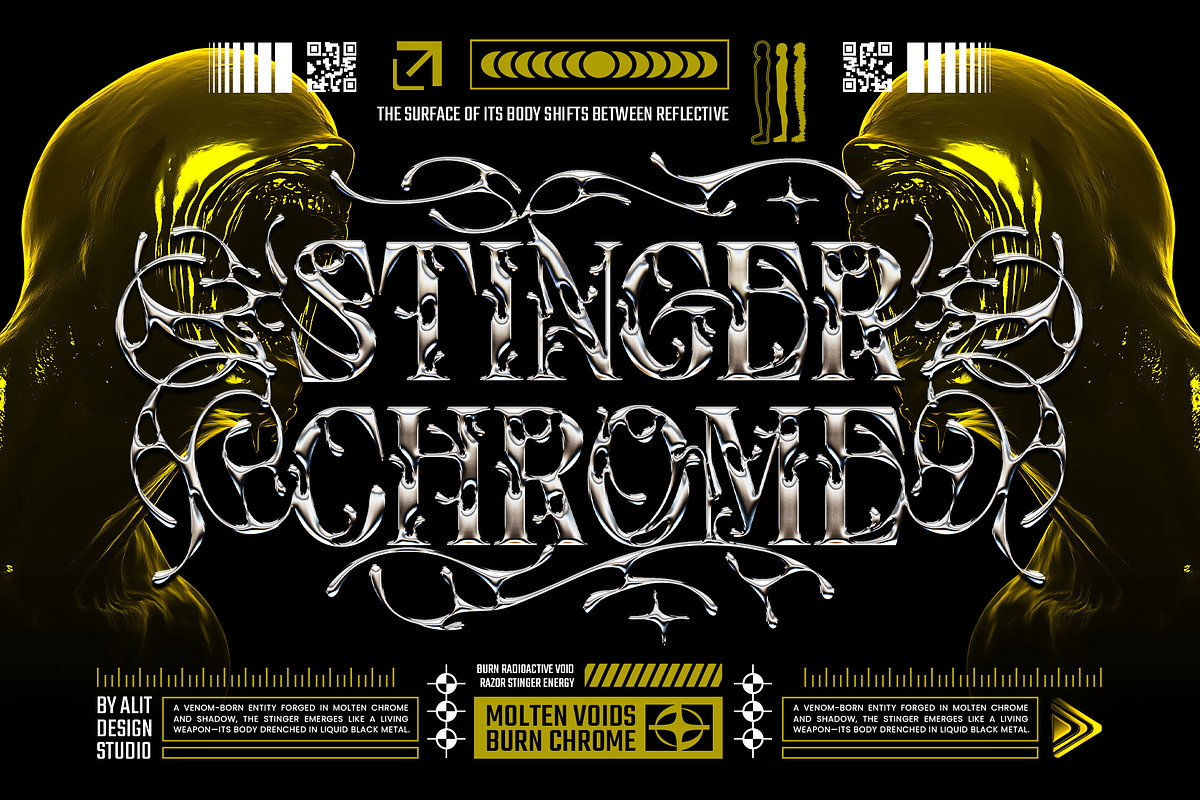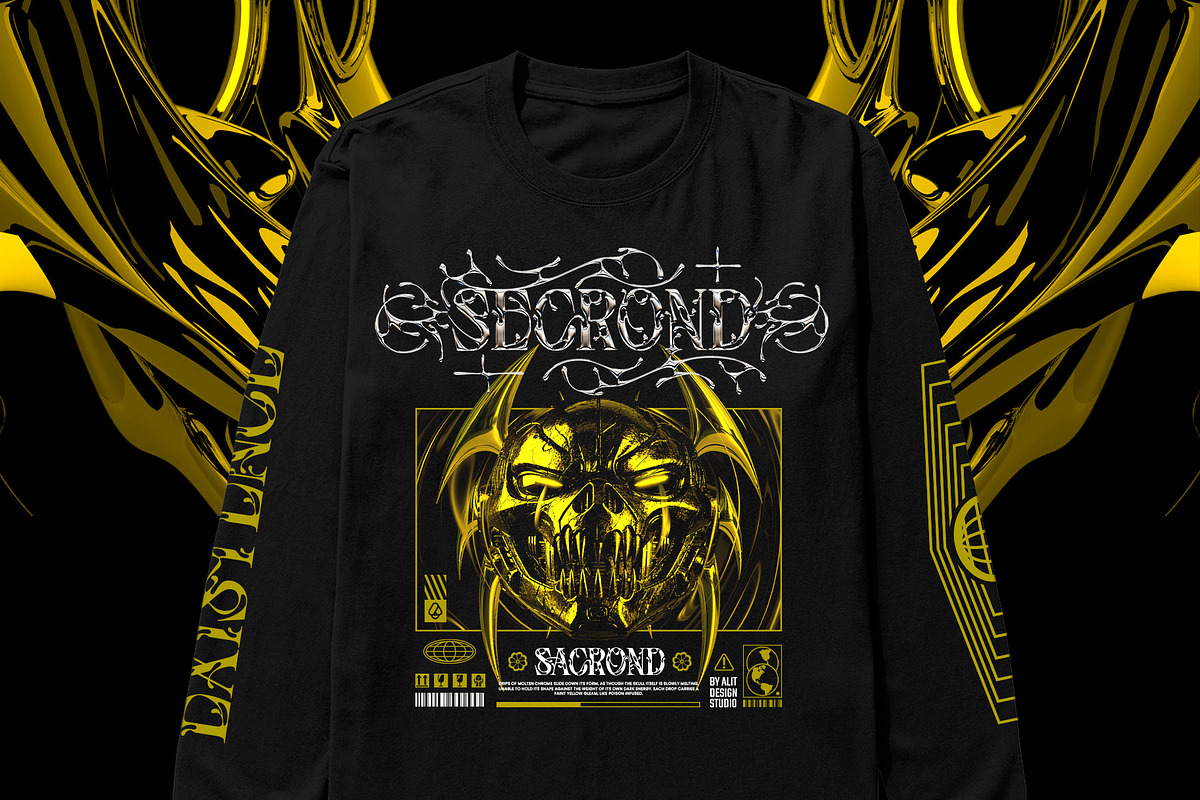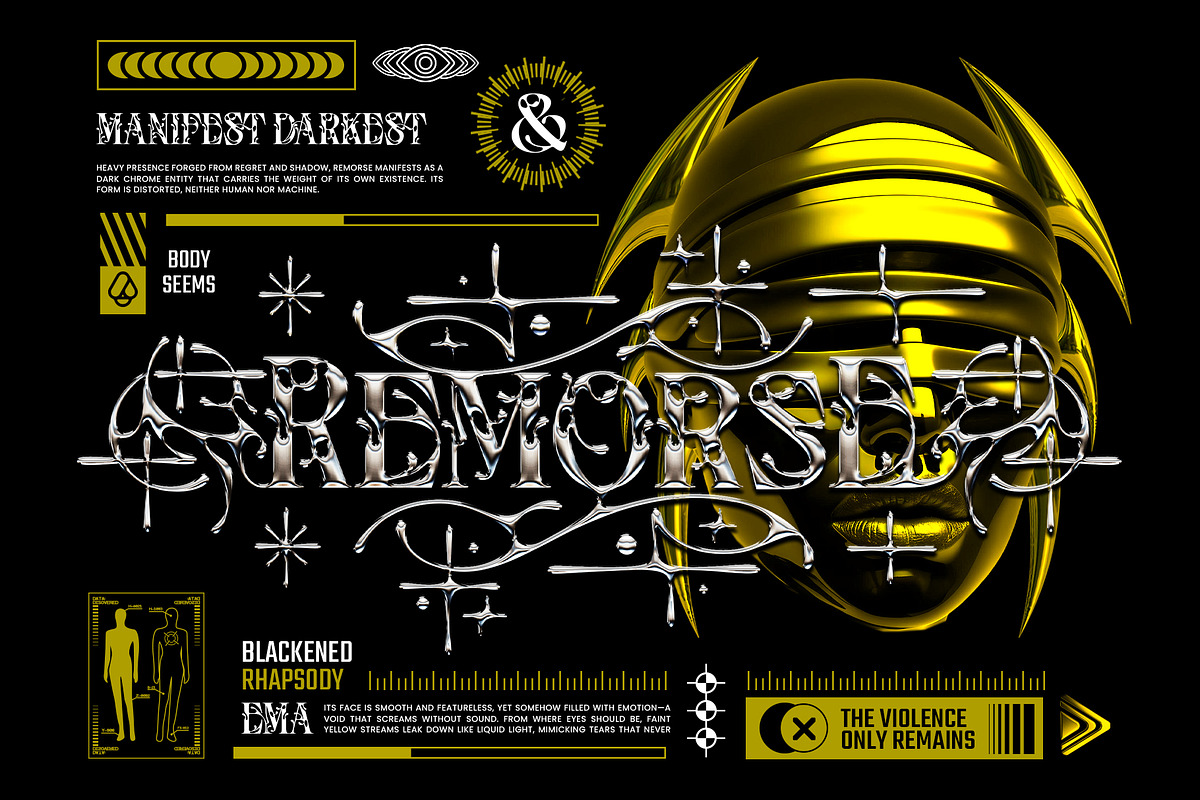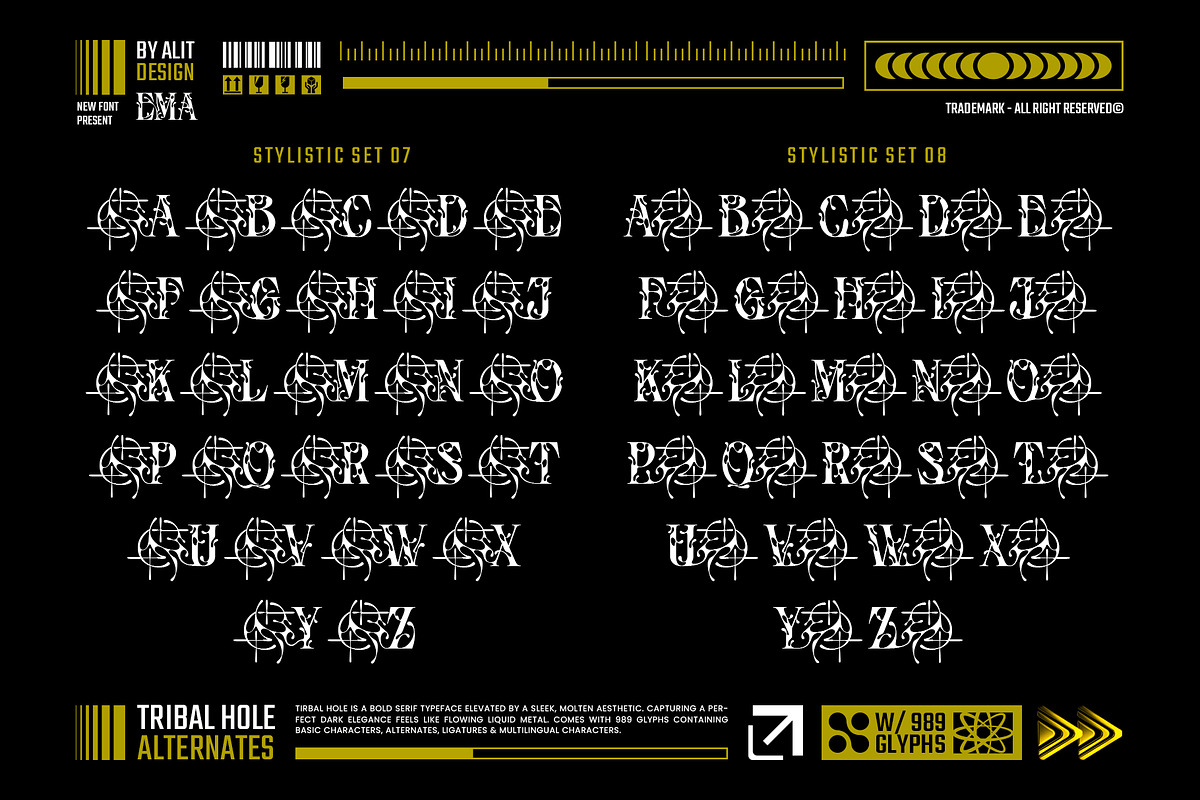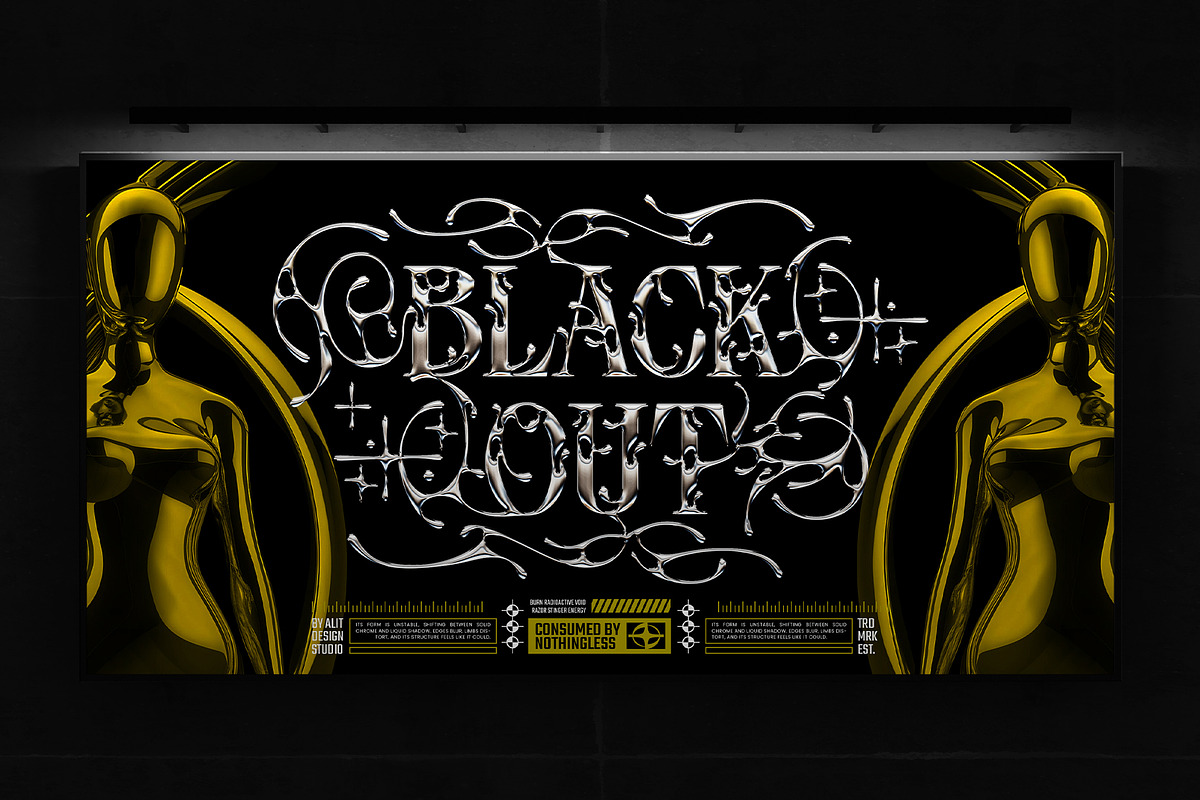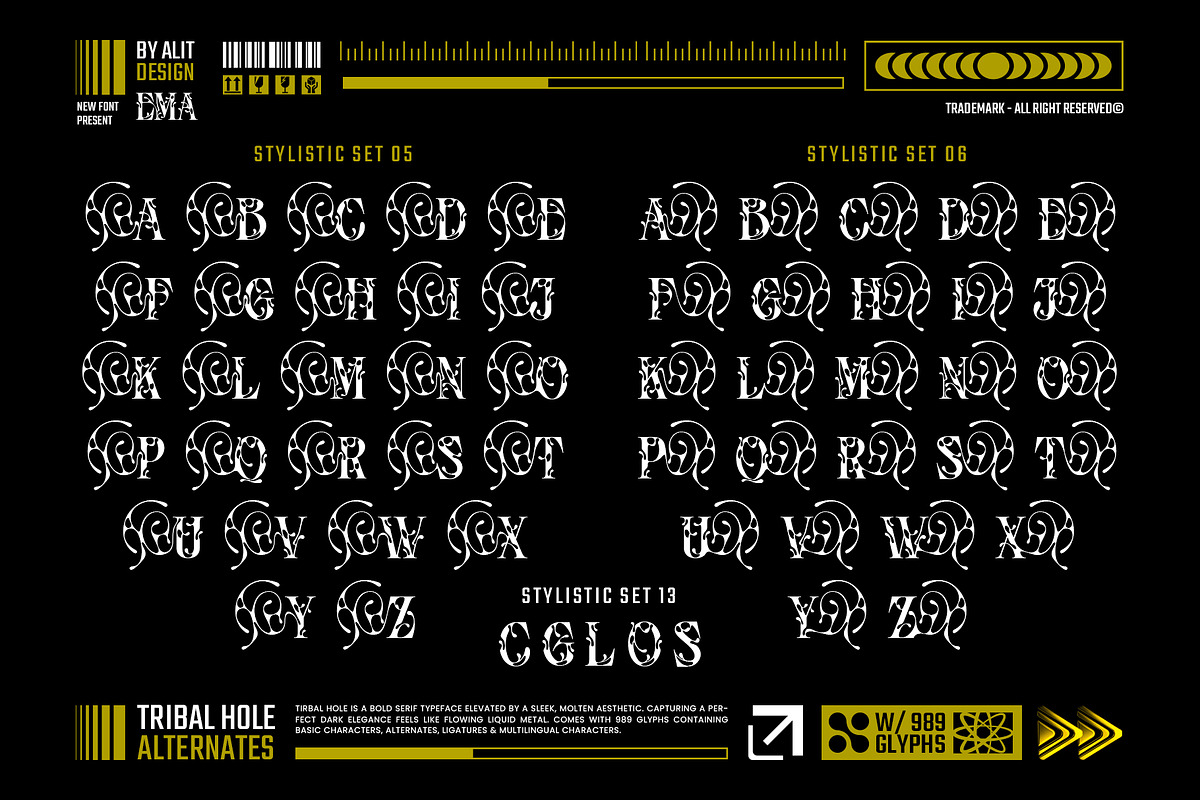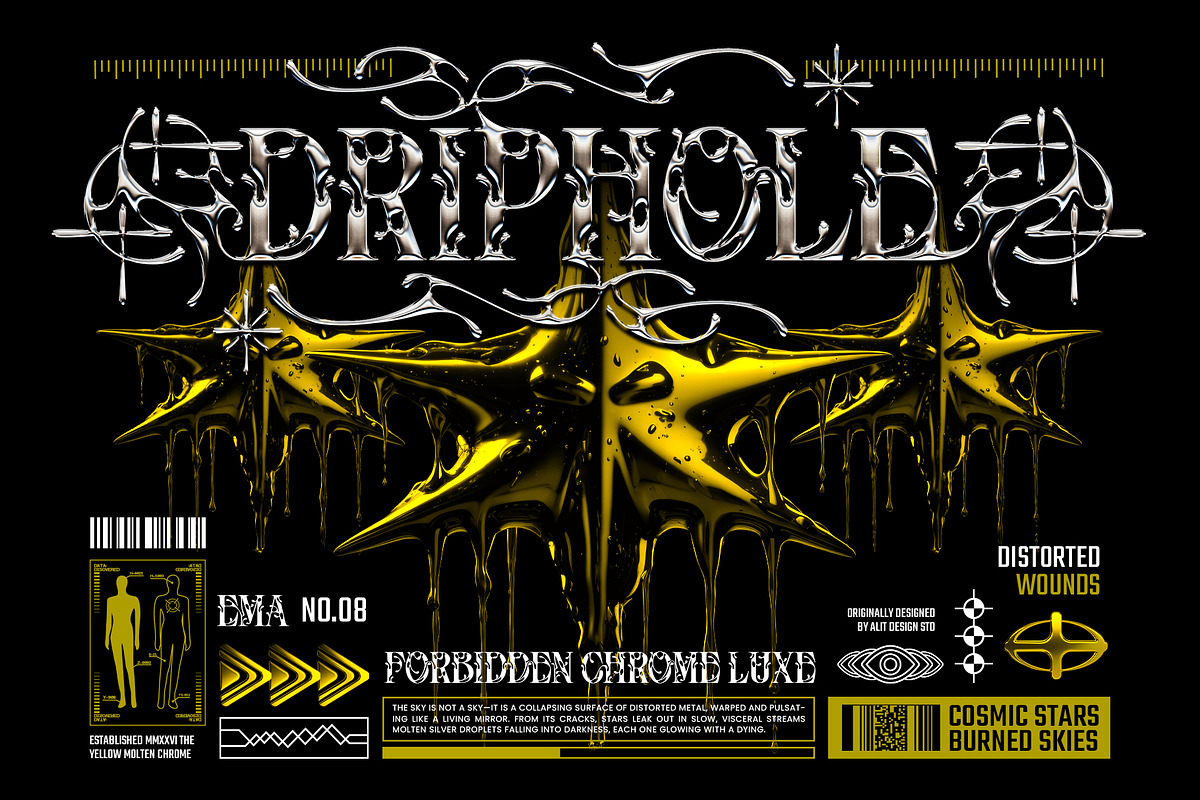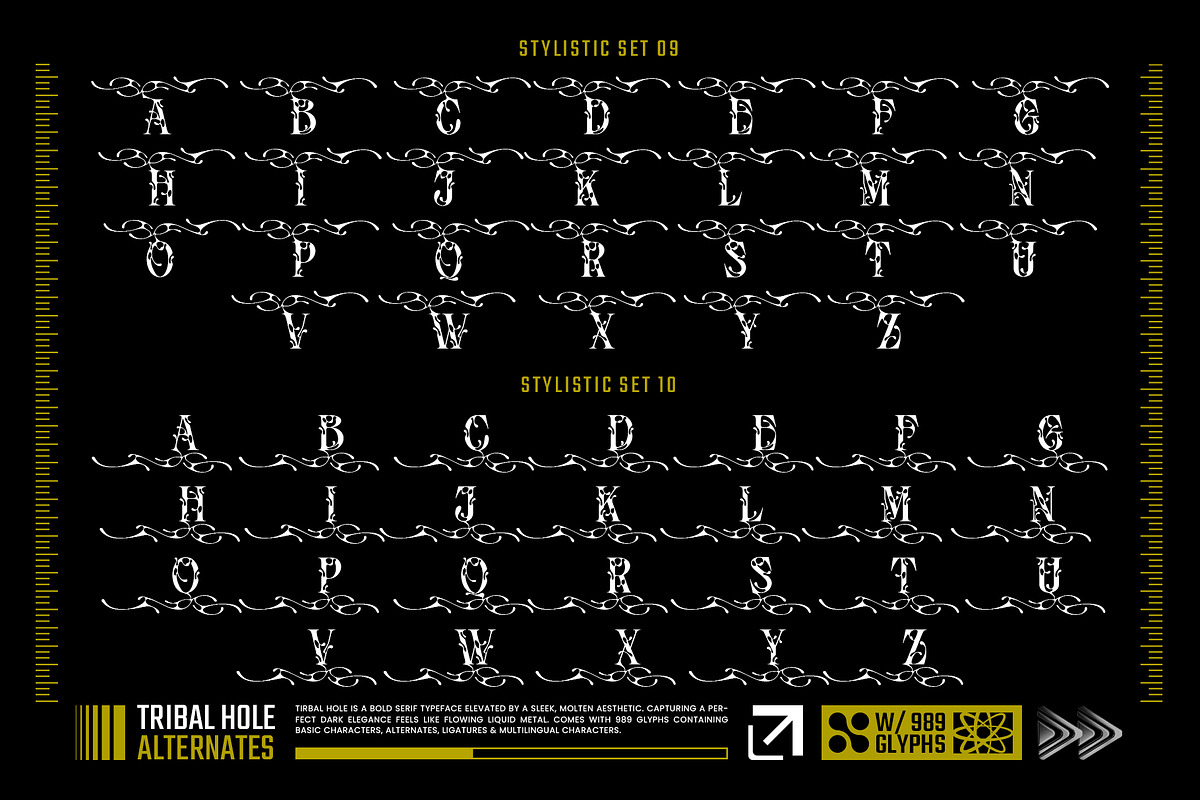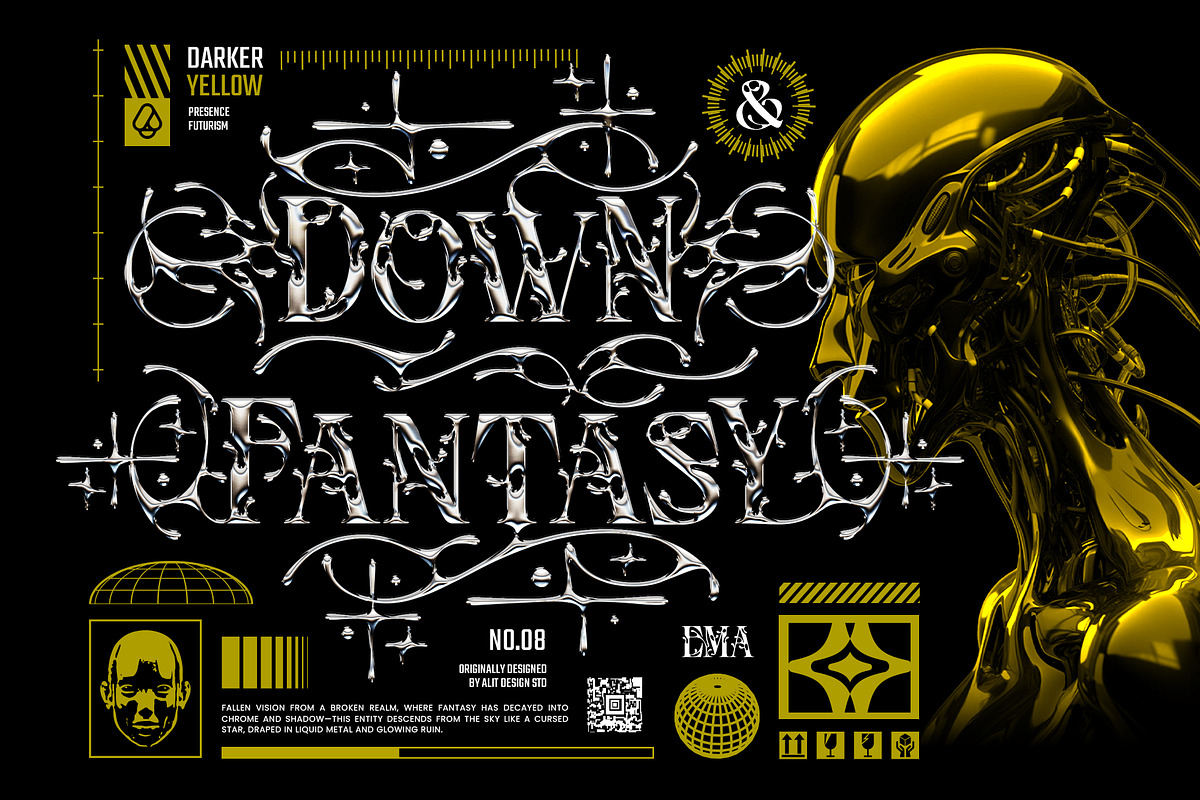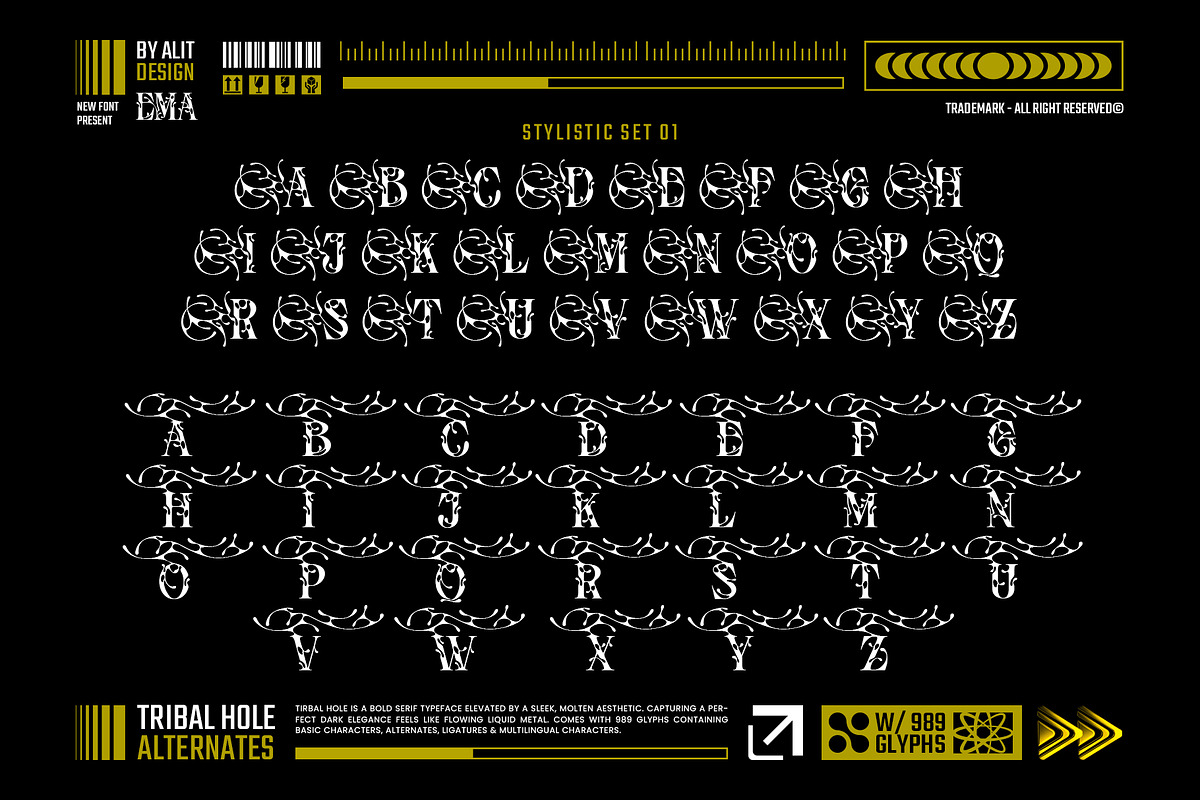
Tribal Hole Typeface
Tribal Hole – A Molten Chrome Neo-Tribal Typeface
Elevate your designs with the raw, liquid energy of Tribal Hole.
Tribal Hole is a masterpiece of modern typography, brilliantly fusing the timeless weight of a bold serif with a sleek, molten aesthetic. Inspired by the sharp, organic curves of neo-tribal art and the high-tech sheen of sci-fi chrome, this typeface is designed to capture a "dark elegance" that feels like flowing liquid metal.
Every character is meticulously crafted with cutting-edge "molten voids," giving the font a living, breathing texture. Whether you are aiming for a gritty underground vibe or a premium futuristic look, Tribal Hole provides the versatility and visual impact needed to stand out.
Unrivaled Customization Tribal Hole isn’t just a font; it’s a complete design toolkit. With 989 total glyphs, it features an expansive library of alternates and decorative swashes. You can easily transform simple words into complex, custom-looking logotypes using:
- 13 Distinct Stylistic Sets: From razor-sharp flourishes to cosmic star-infused ornaments.
- Extensive Ligatures: For seamless, flowing connections between letters.
- Ornate Alternates: Including top, bottom, and surrounding tribal frames.
- Brand Identity: Bold logos for streetwear, jewelry, or tech brands.
- Music Industry: Album covers, tour posters, and festival visuals.
- Digital Art: 3D renders, social media graphics, and "Y2K" aesthetic projects.
- Editorial: Striking headlines and high-fashion magazine layouts.
- Basic Uppercase & Lowercase
- 989 Total Glyphs
- 13 Stylistic Alternate Sets